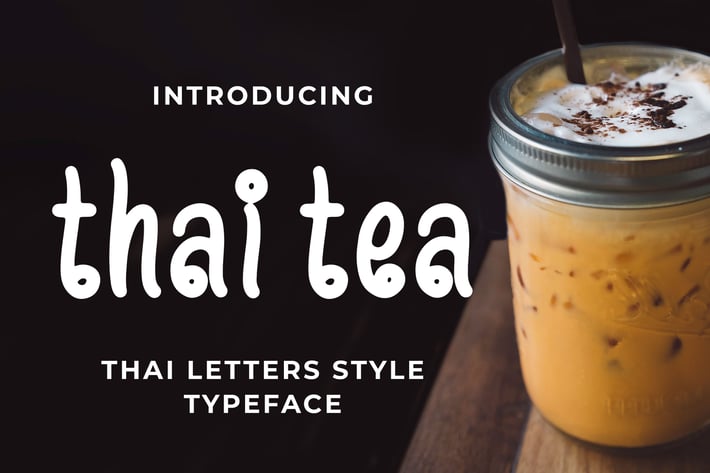
Thai Tea - Thai Style Typeface
Introducing of our new product the name is Thai Tea Thai Style Typeface. Thai Tea inspired by Thai letters style with a fun theme very good for logotype, branding, poster, packaging etc